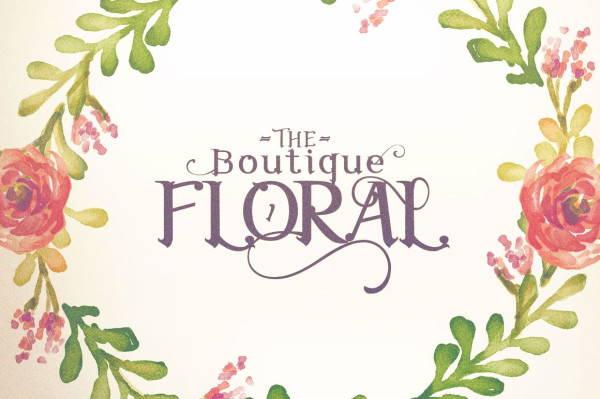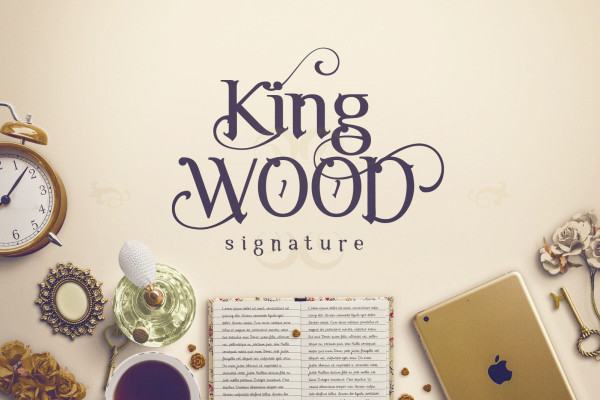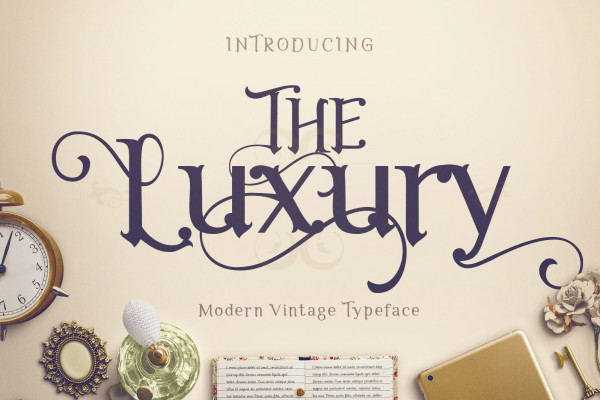
The Luxury Font
The Luxury Font, is a unique, stylish and elegant vintage blackletter font. This typeface will look truly outstanding in a wide range of contexts.